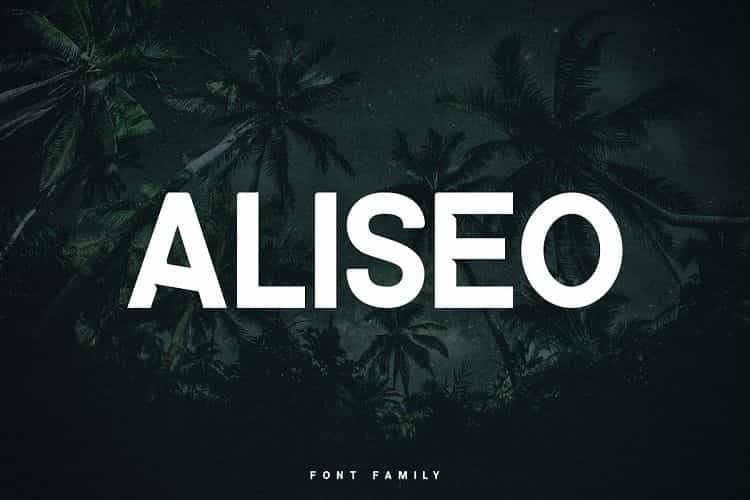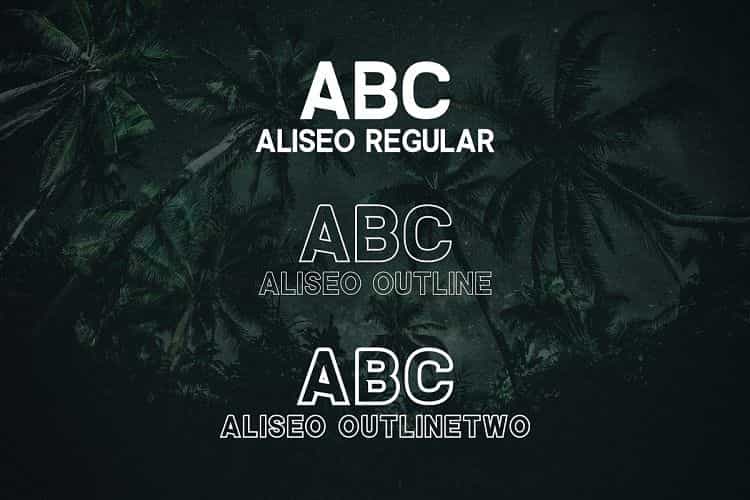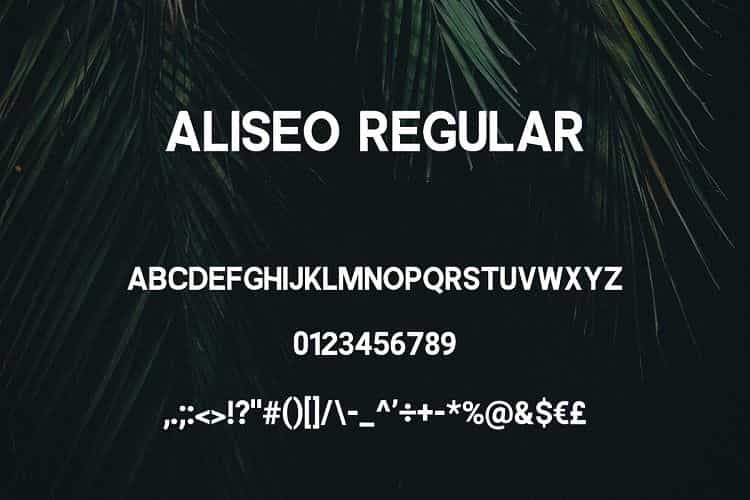
So, here is the new Aliseo Sans Serif Font. Aliseo Font Family is a robust and neat sans serif font. It is a font family that can be used for strong, classic branding. Aliseo is a perfect fit for any branding, logos, magazines,videos, product packaging , website headers,clothing designs and much more.